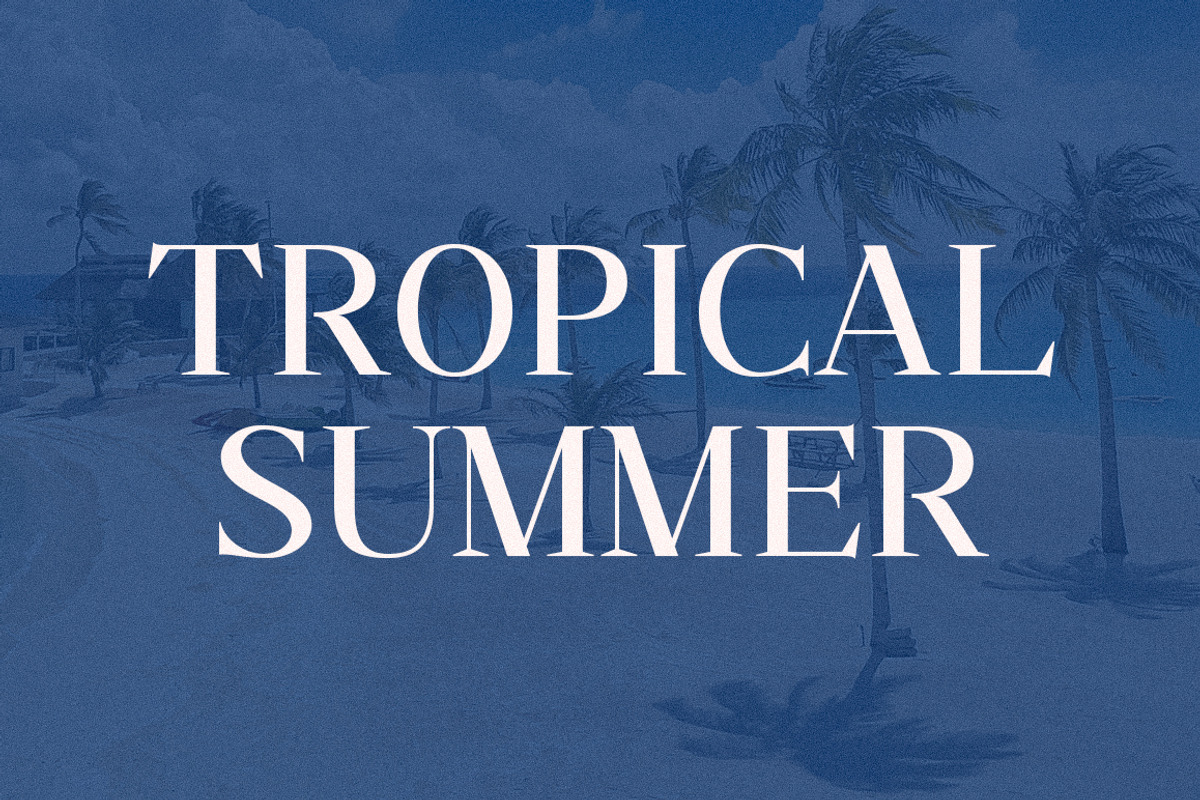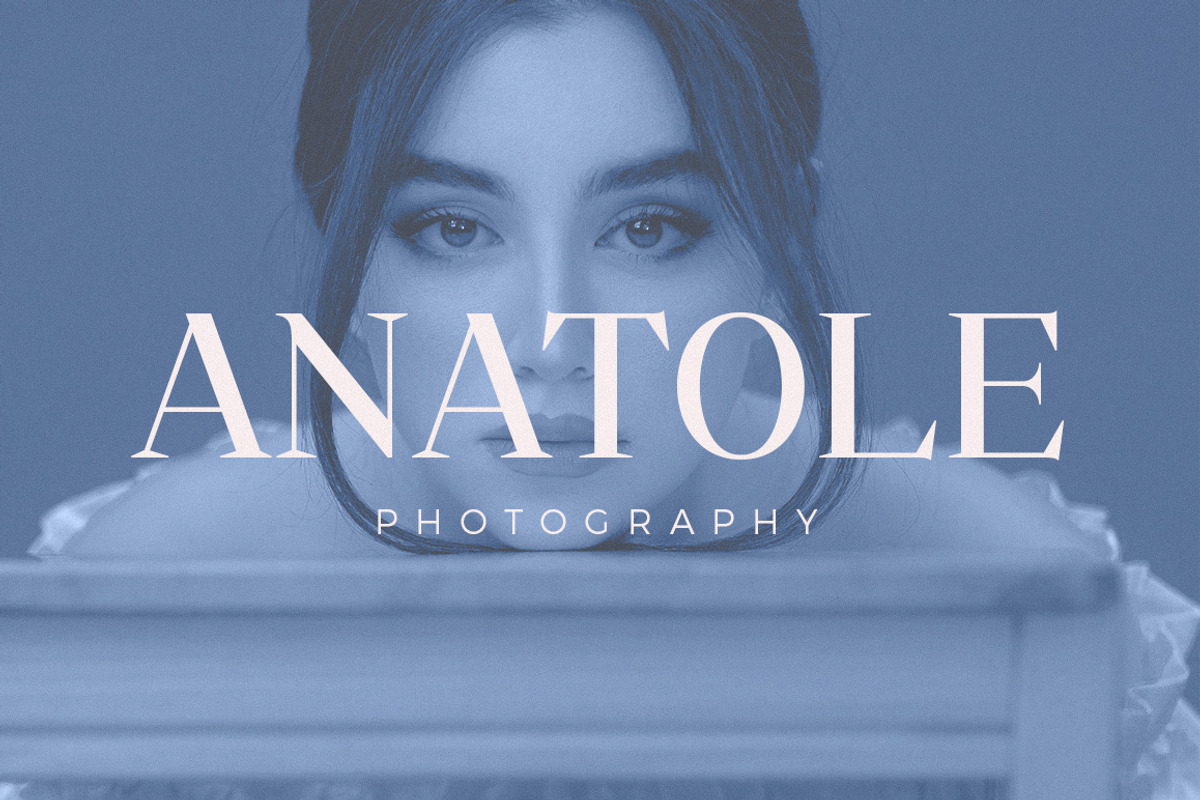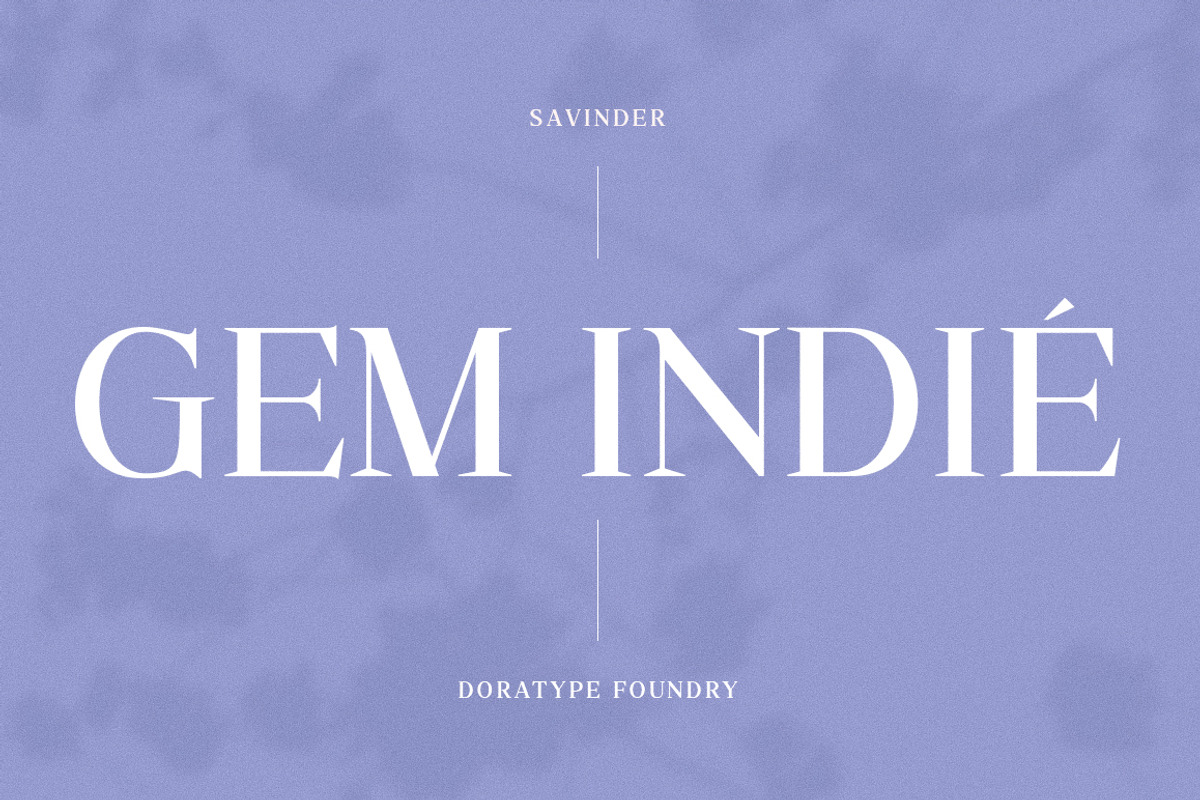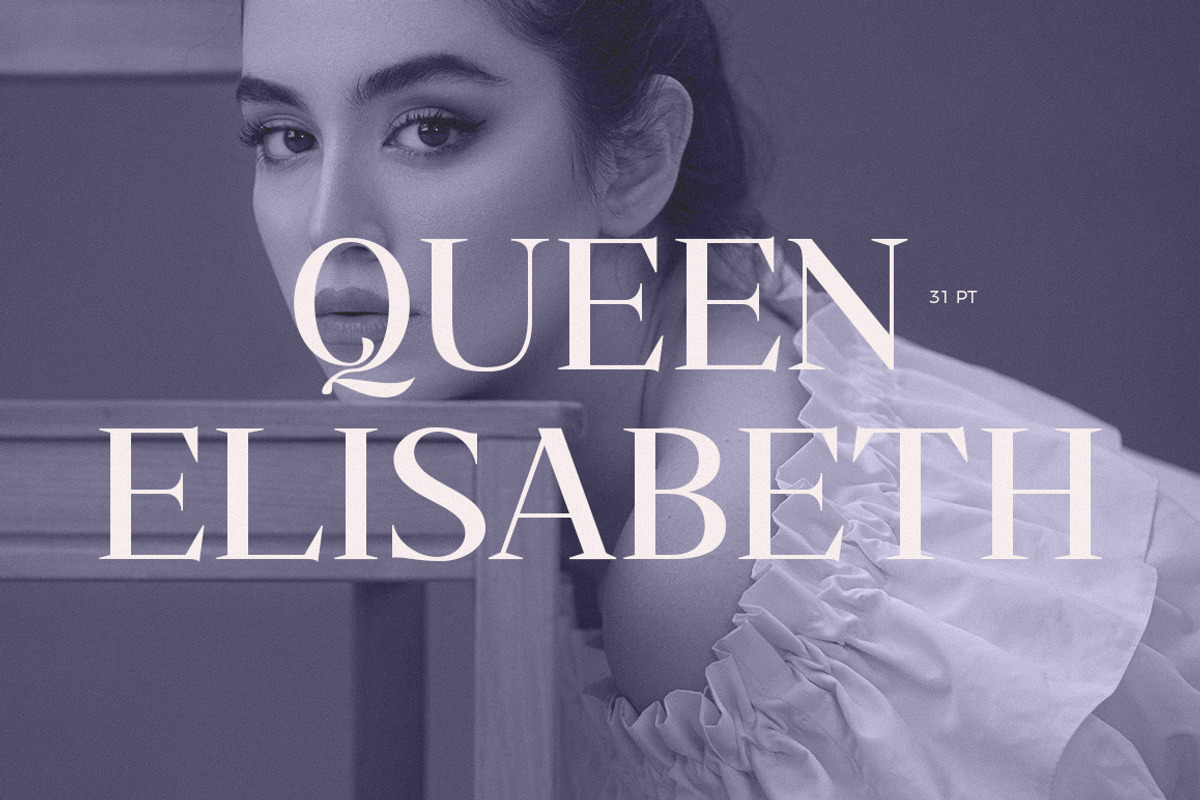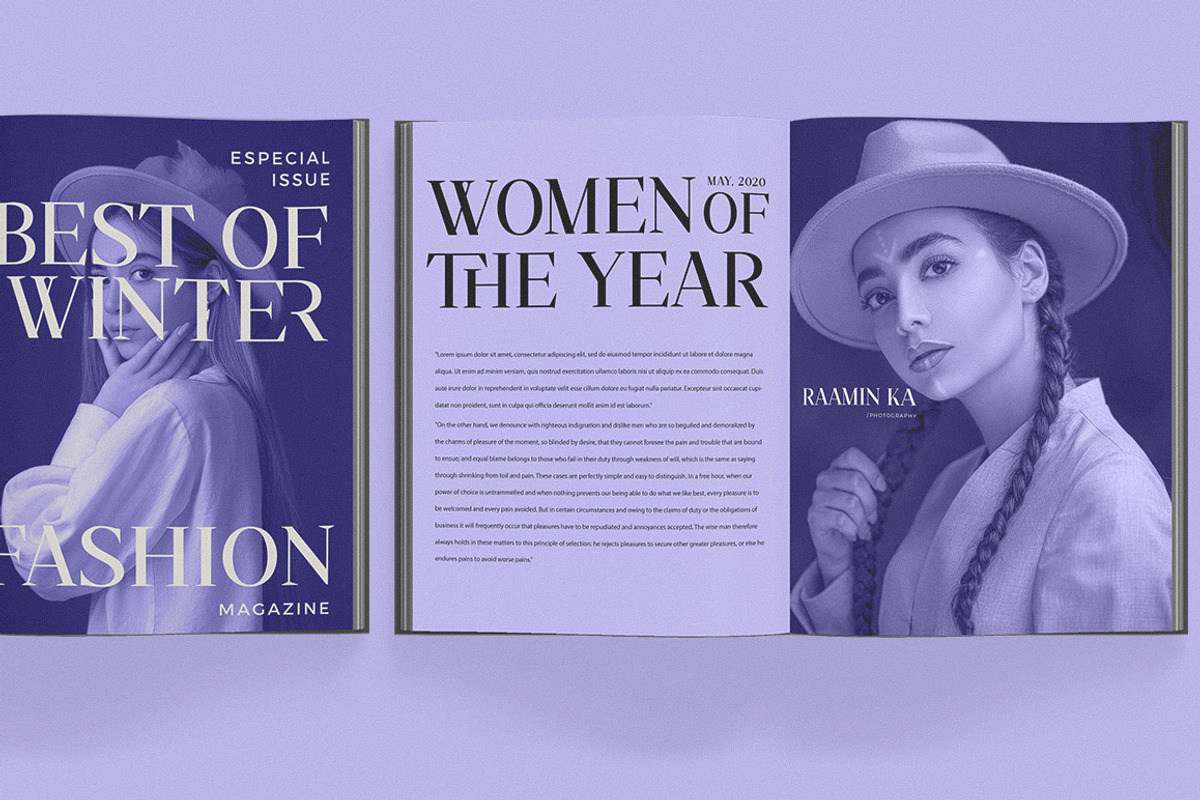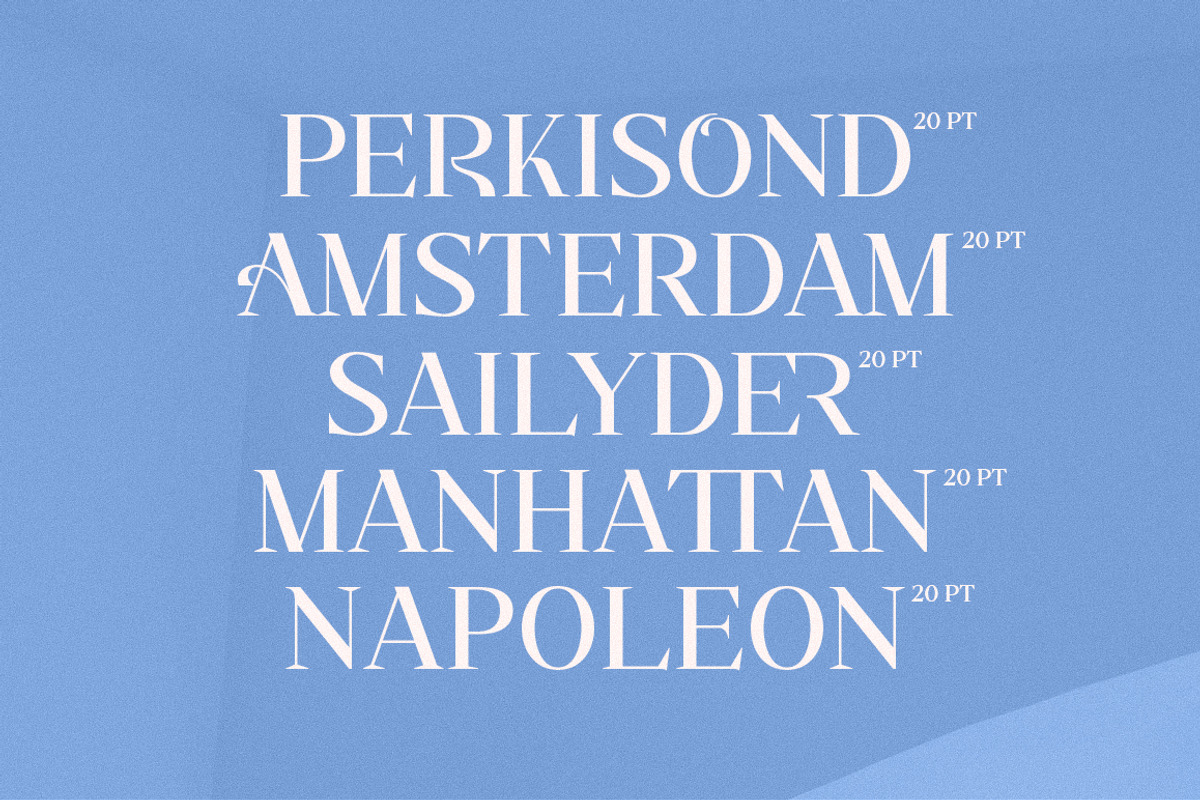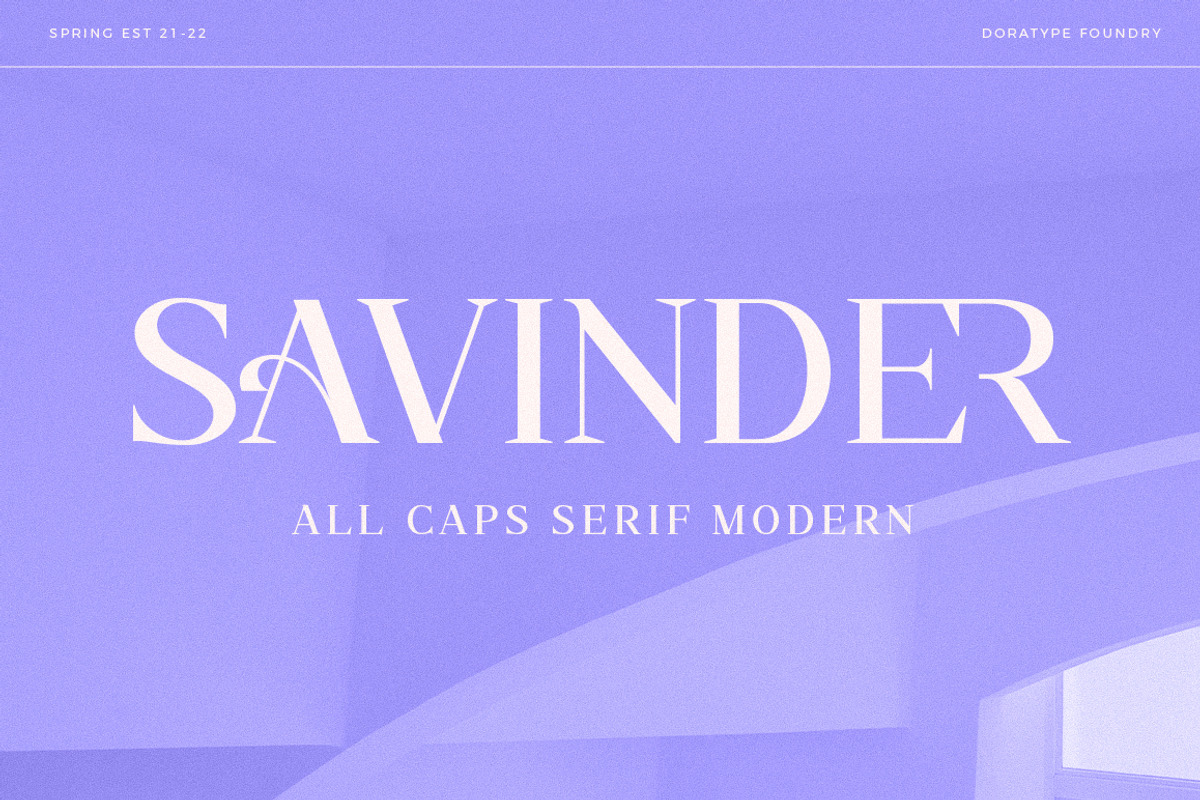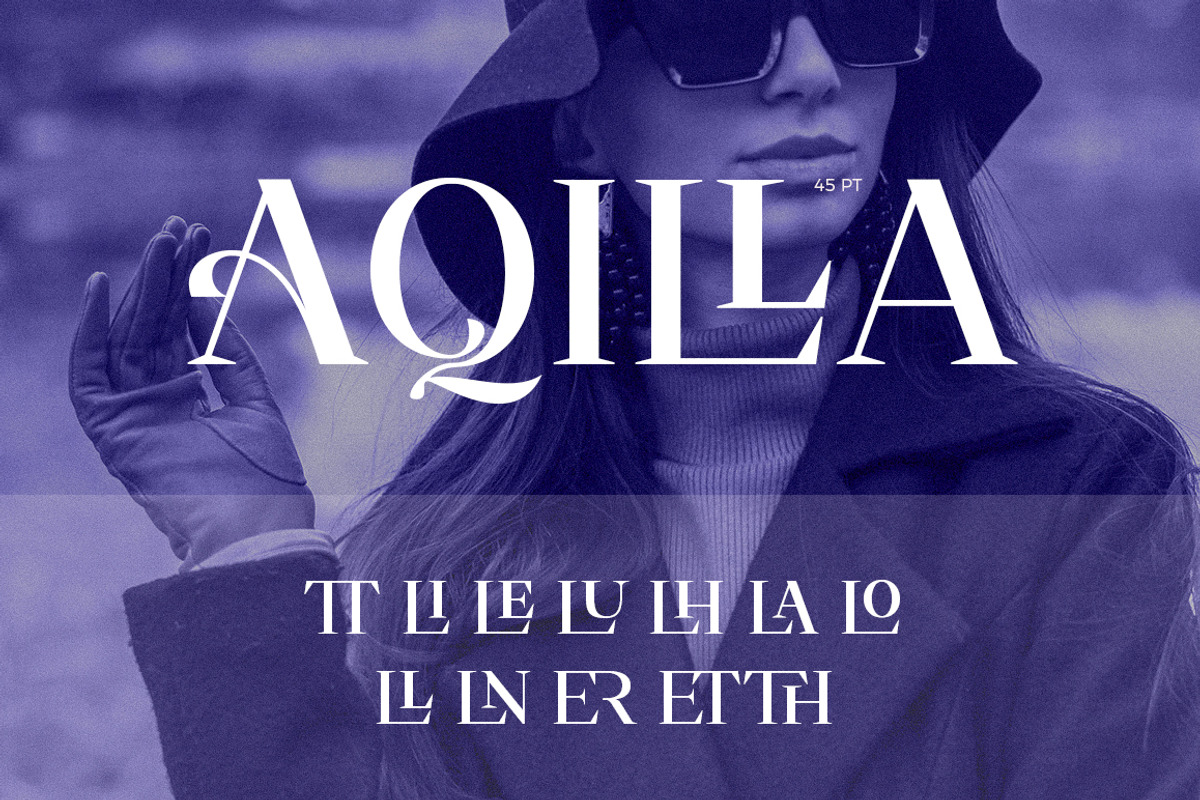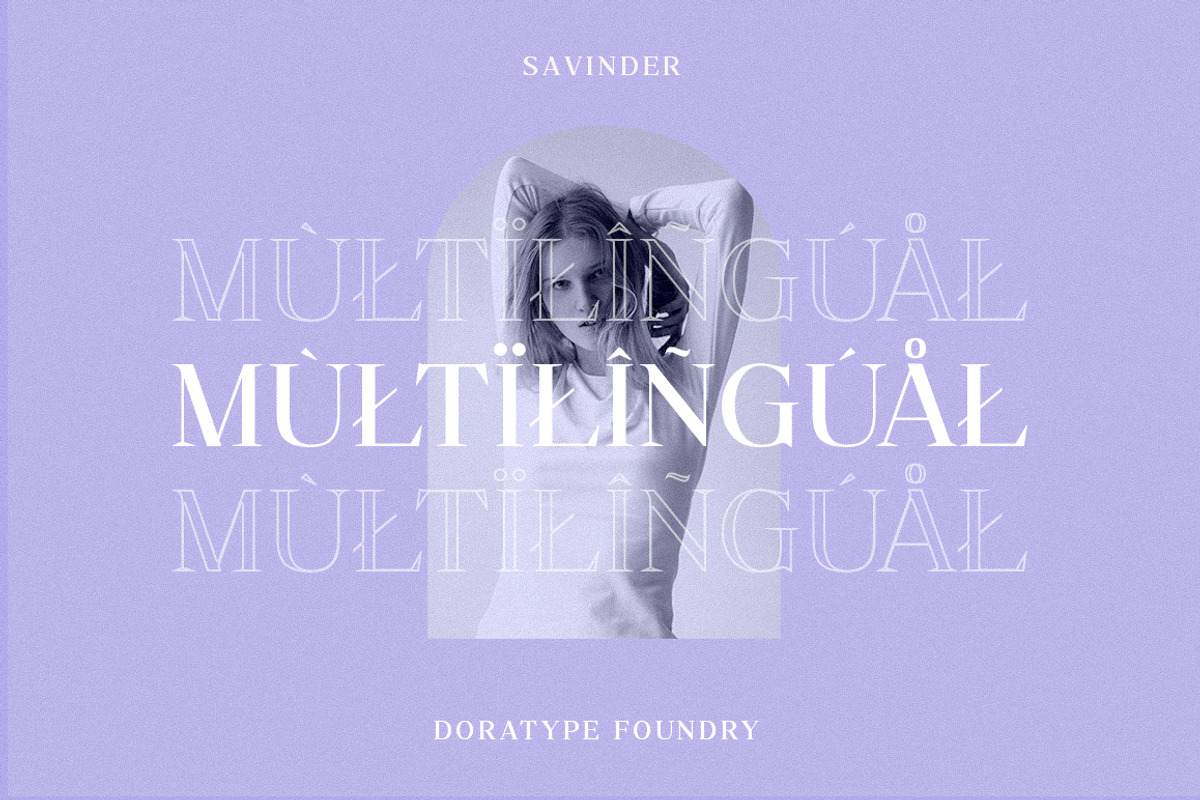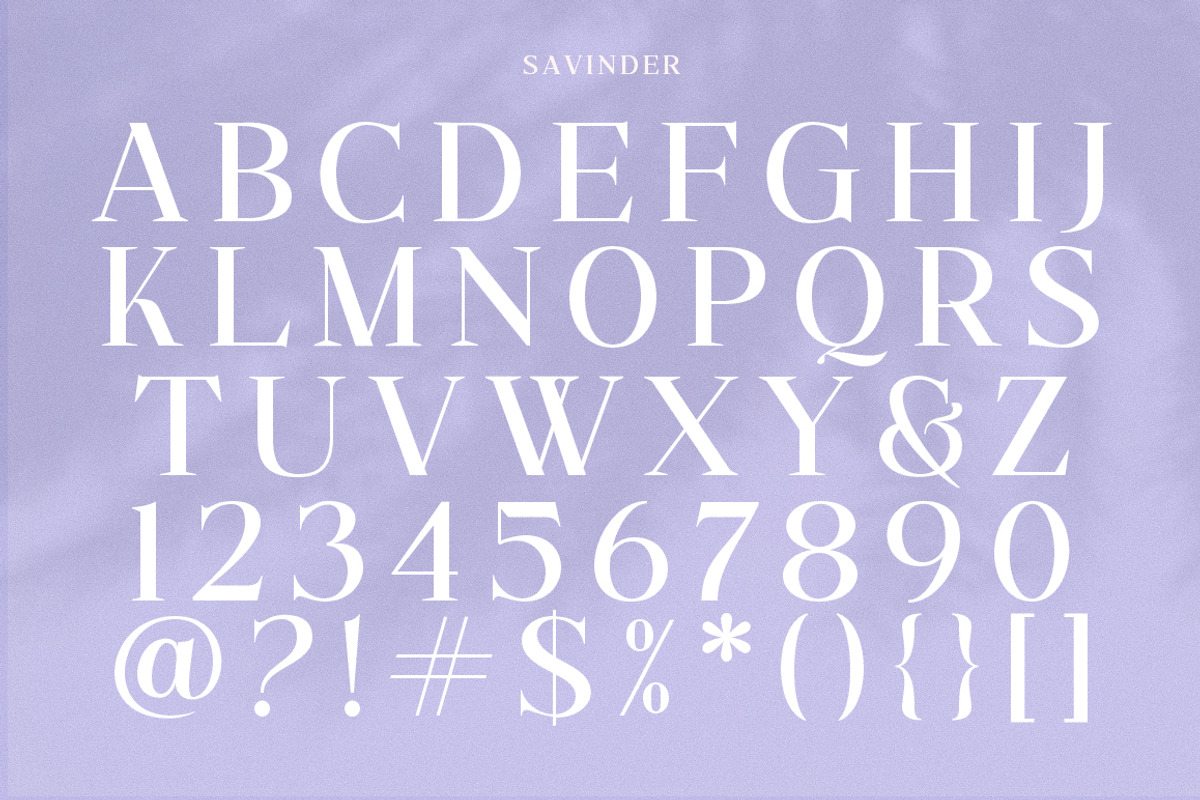
Savinder
SAVINDER - ALL CAPS Serif!
Savinder is a modern and elegant, classy all-capital typeface with unique curves and cuts making it one of the most memorable fonts, perfect for a magazine brand or title. You can also use this font for logos, branding, and it's versatile for any project too!
- Characters with accents
- Supports Languages